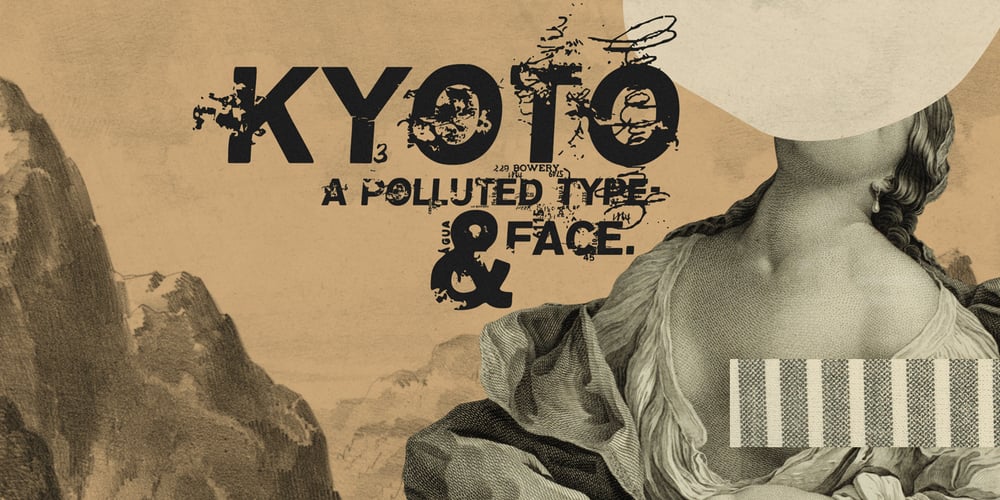
Kyoto
Kyoto font
Kyoto Font Family was designed by Eduardo Recife and published by Misprinted Type. Kyoto contains 4 styles and family package options. Kyoto is a polluted and grunge typeface. It works well for titles and logos or good for using it in crowded sentences. It comes with two uppercase styles and also comes with an X version, full of stains, markings and other things which will make your font look even more dirty.